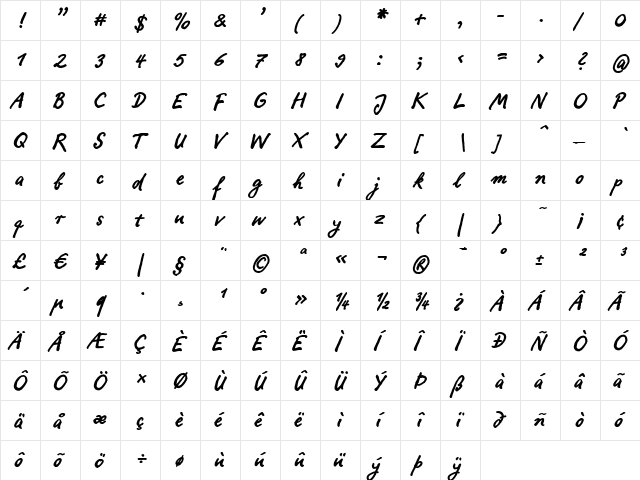
RopsenScript-Bold Regular
Design Context for RopsenScript-Bold Typeface
RopsenScript-Bold flows with the natural rhythm of handwritten lettering, making it ideal for designs that call for warmth and personal expression. The heavy weight commands attention and anchors typographic hierarchies.
Font Pairing: Combine RopsenScript-Bold with a simple geometric sans for maximum contrast — the tension between flowing curves and clean structure is a classic typographic pairing.
Pro Tip: Pair RopsenScript-Bold with a clean sans-serif for supporting text. The contrast between fluid script and geometric structure creates an elegant typographic hierarchy.